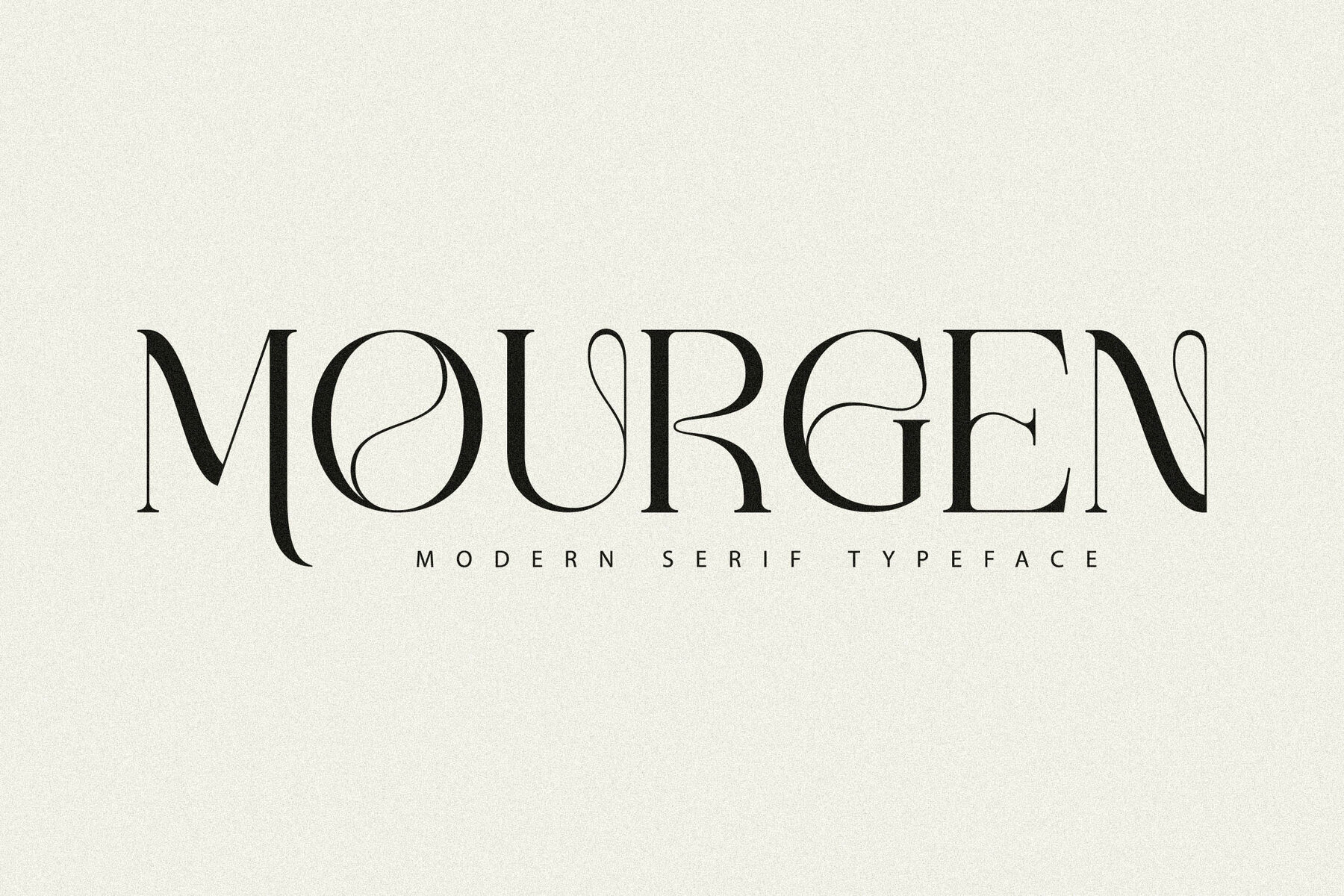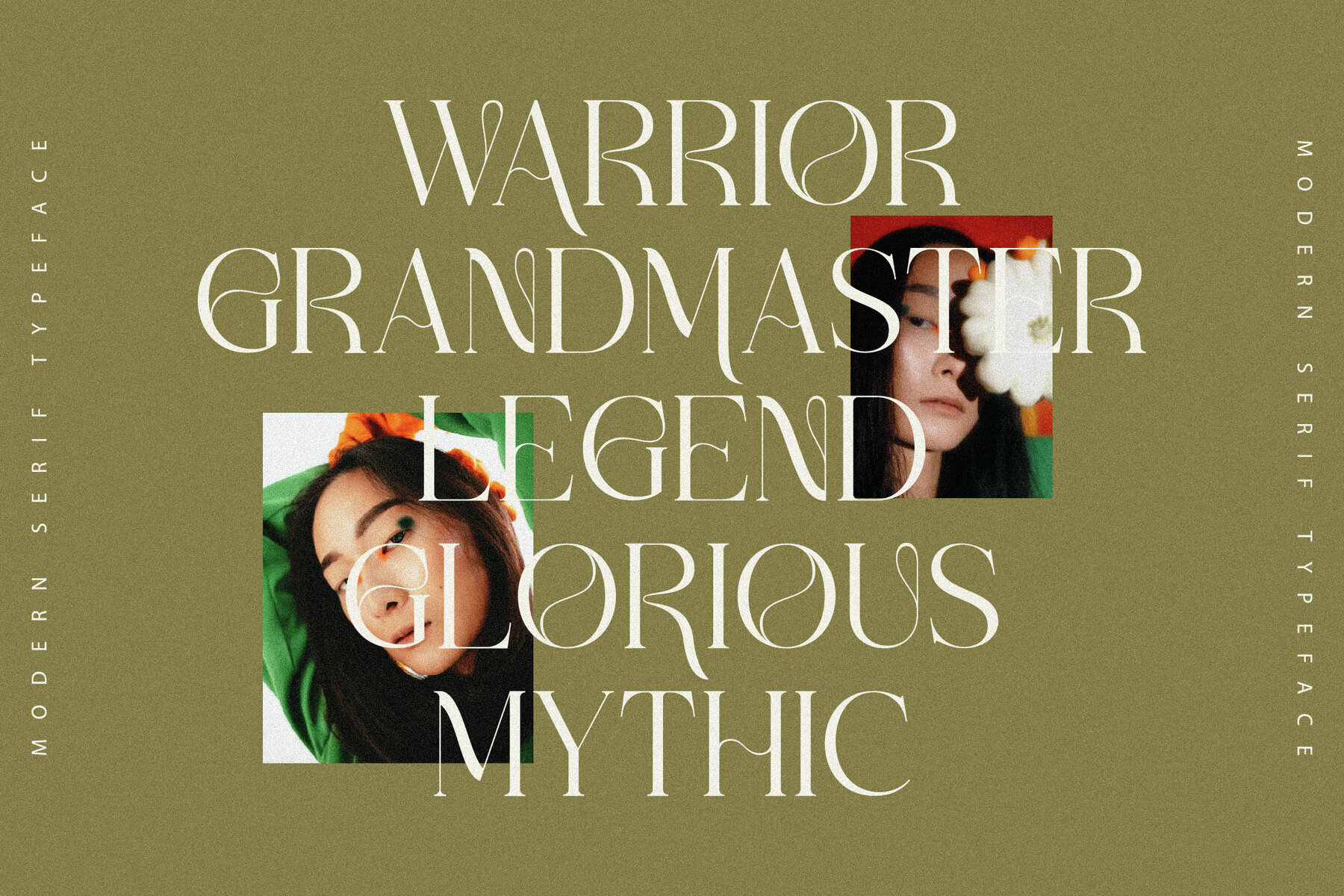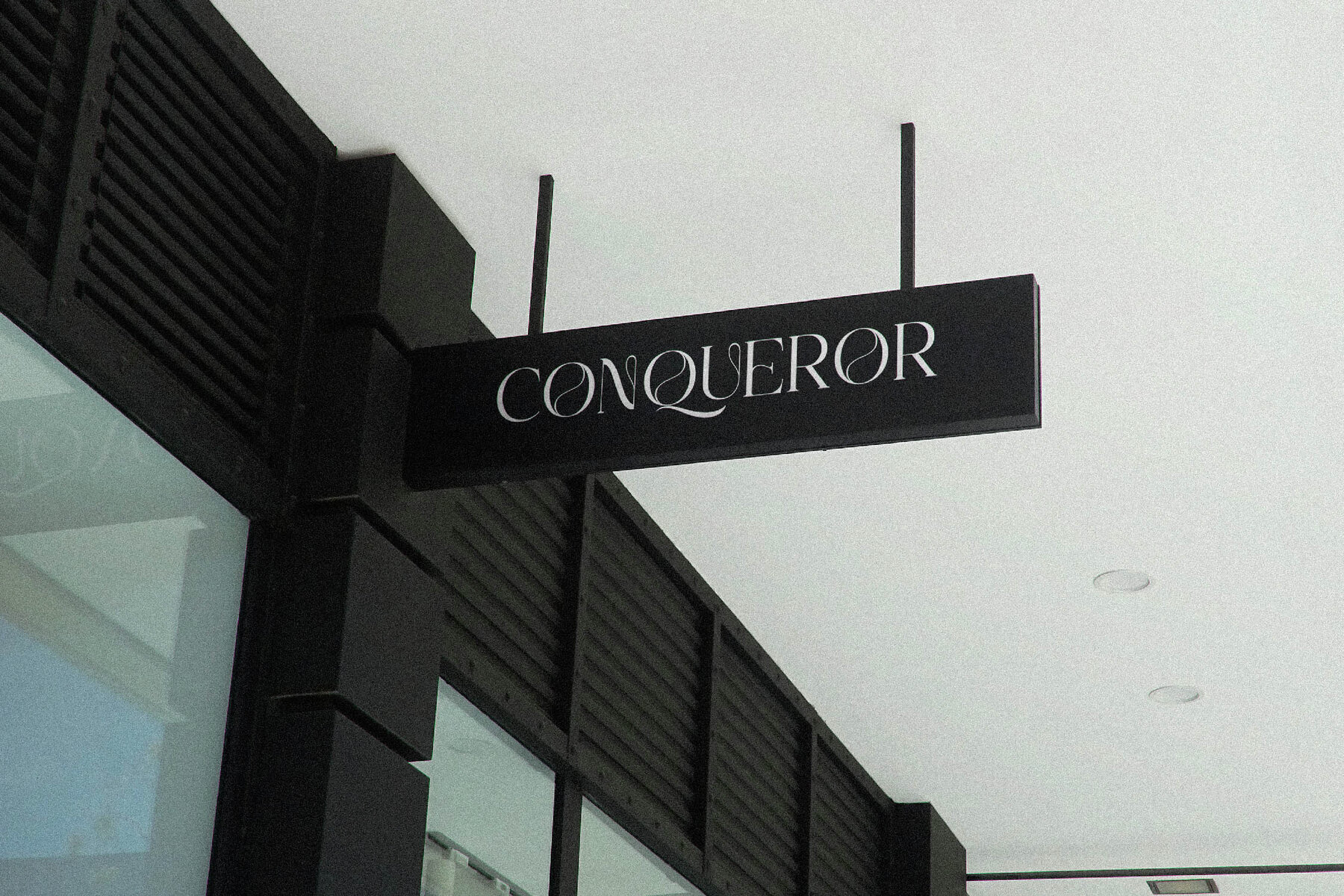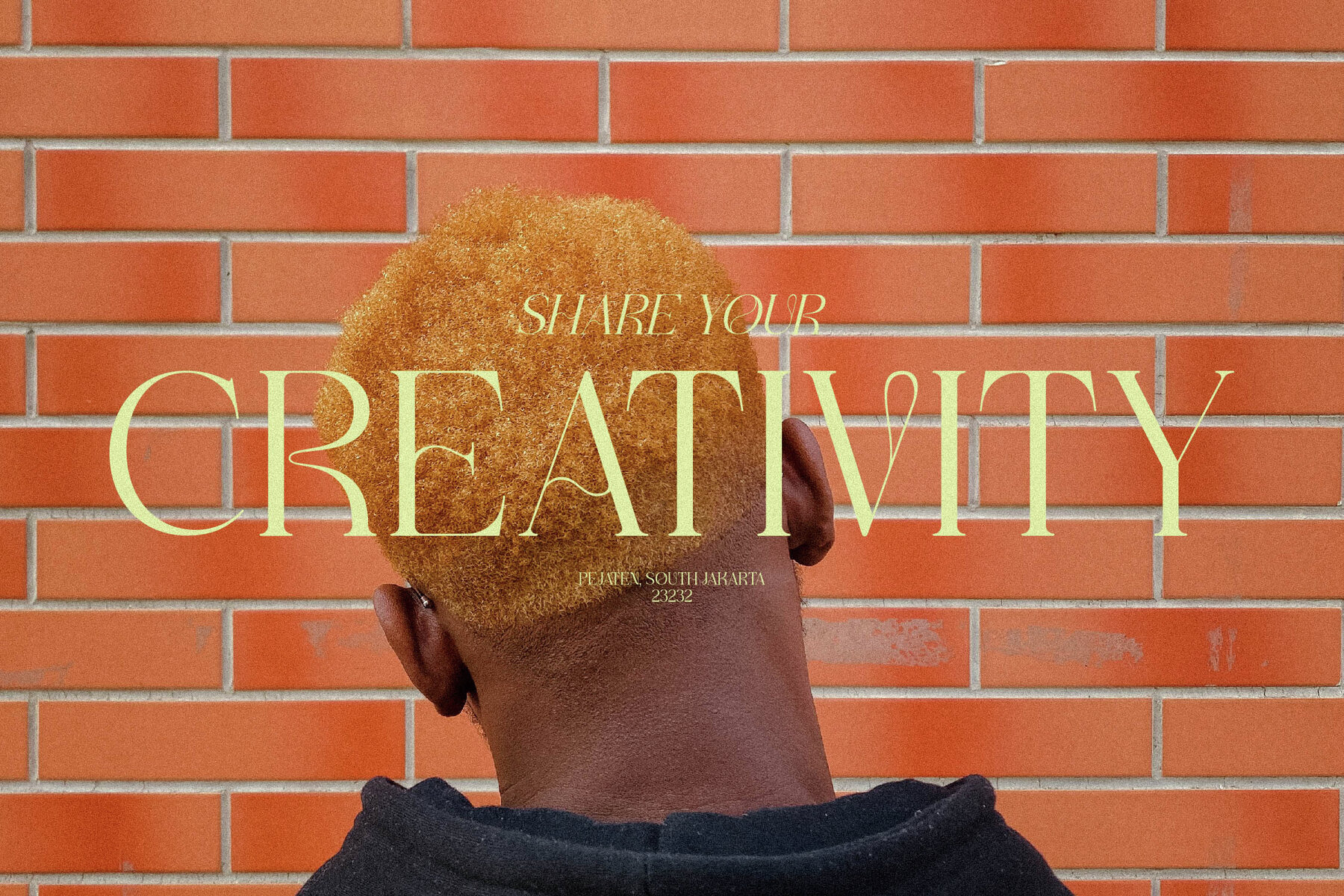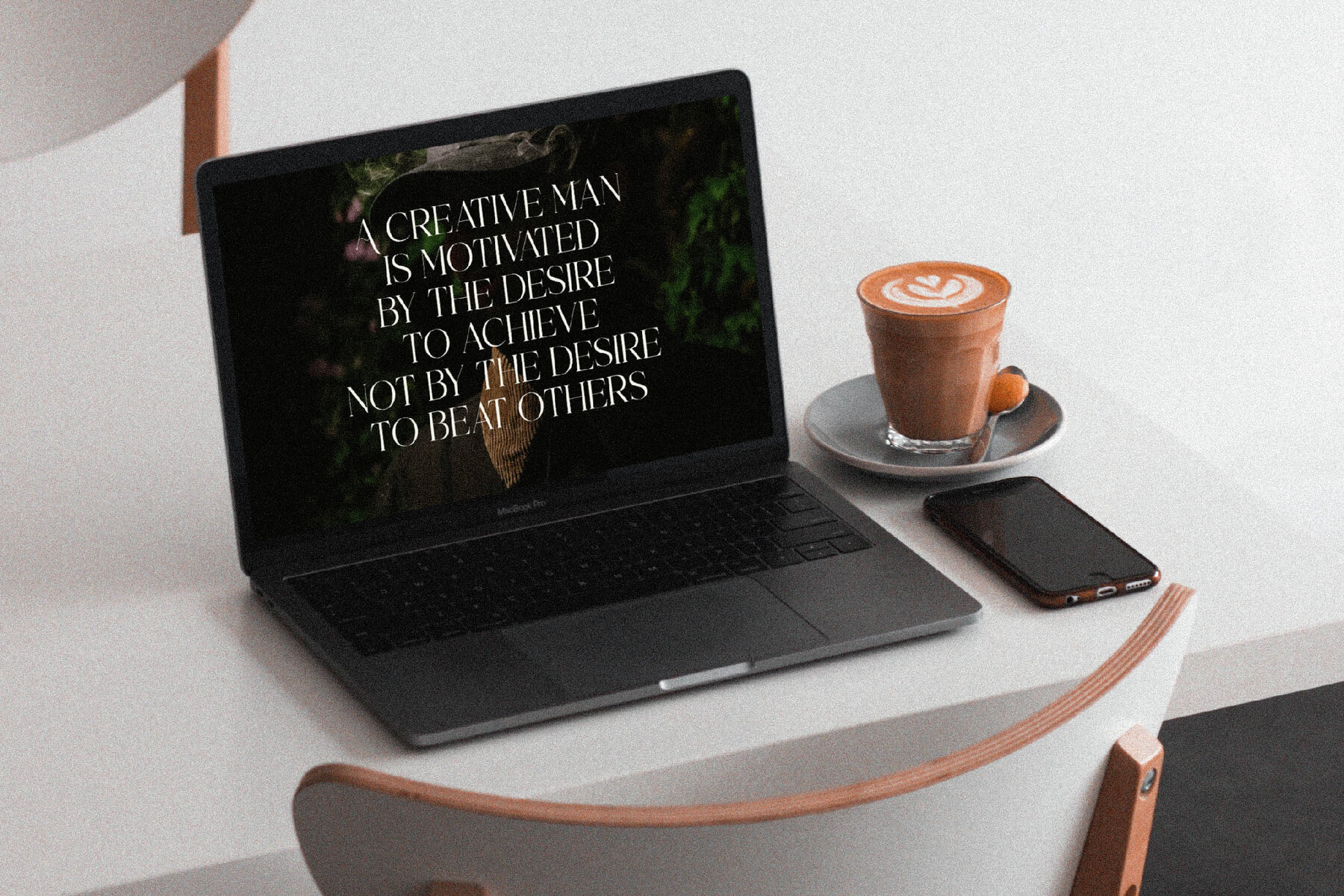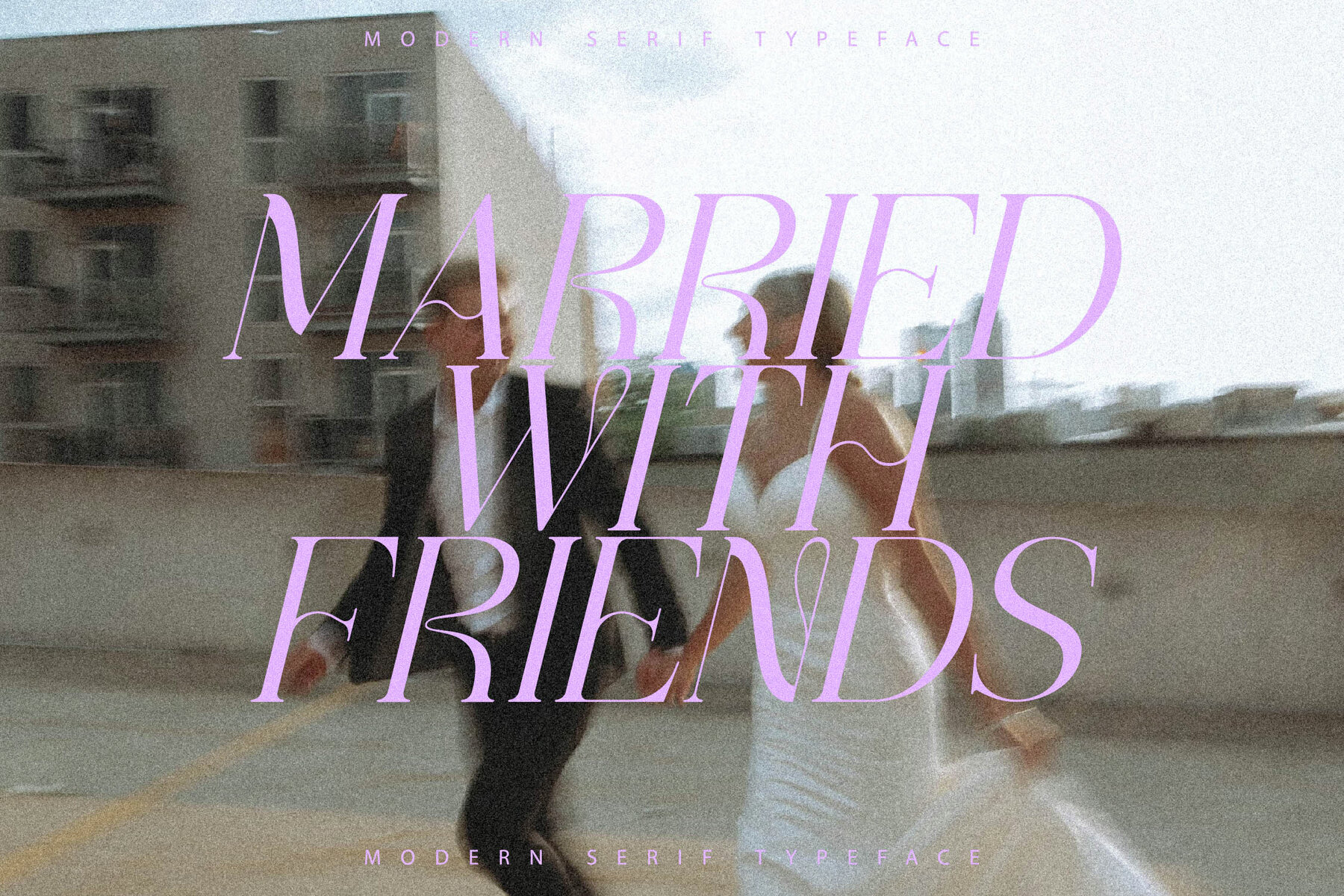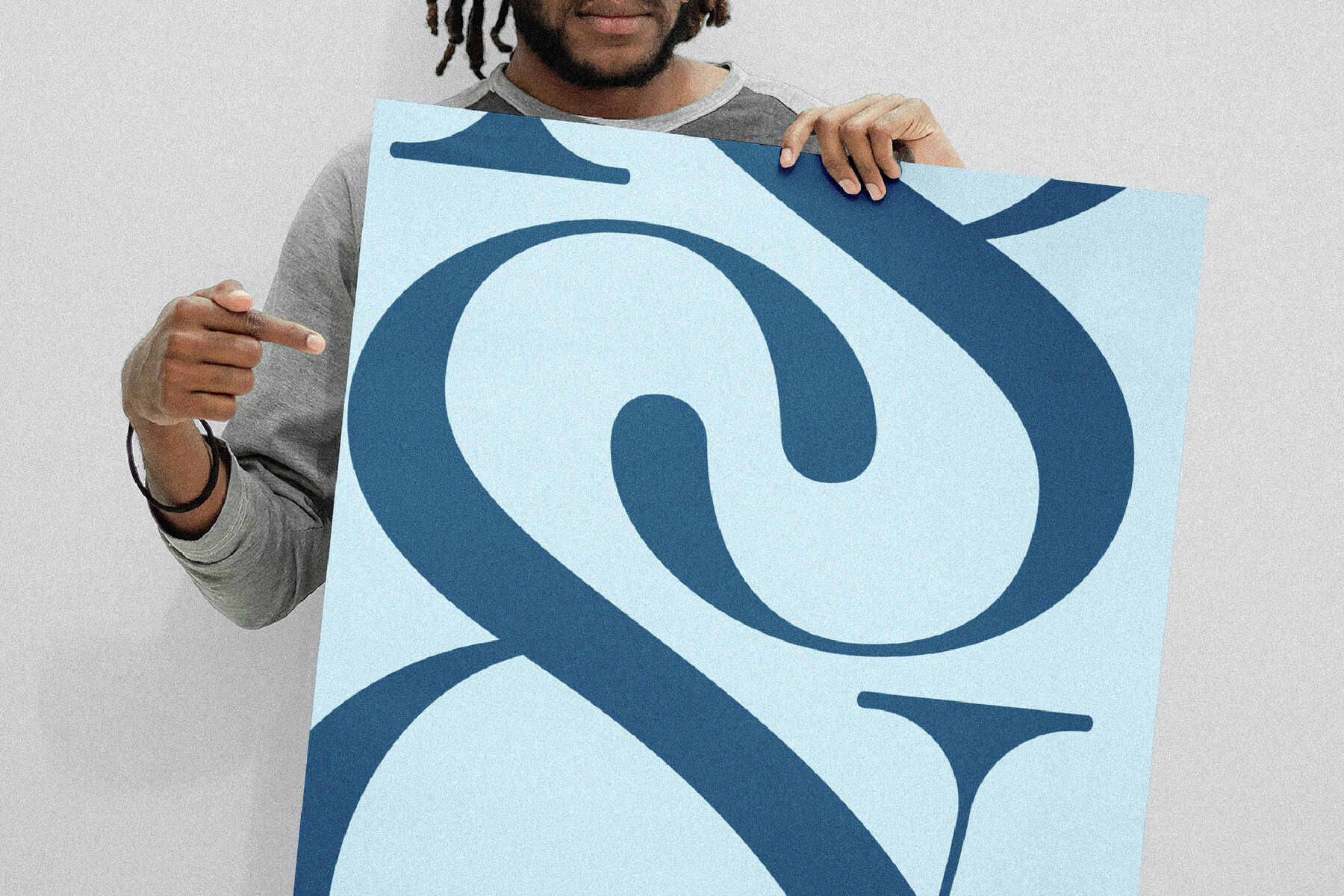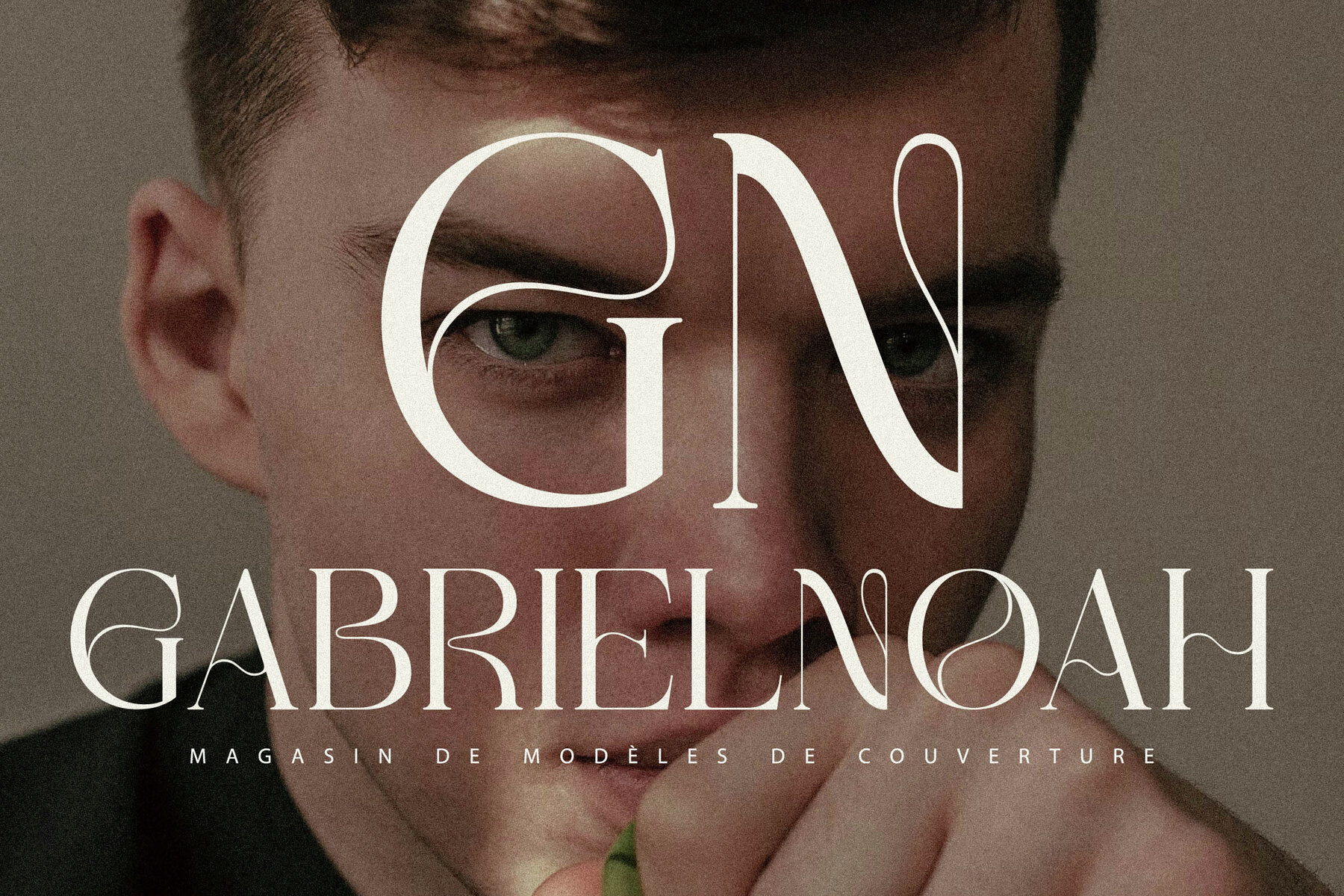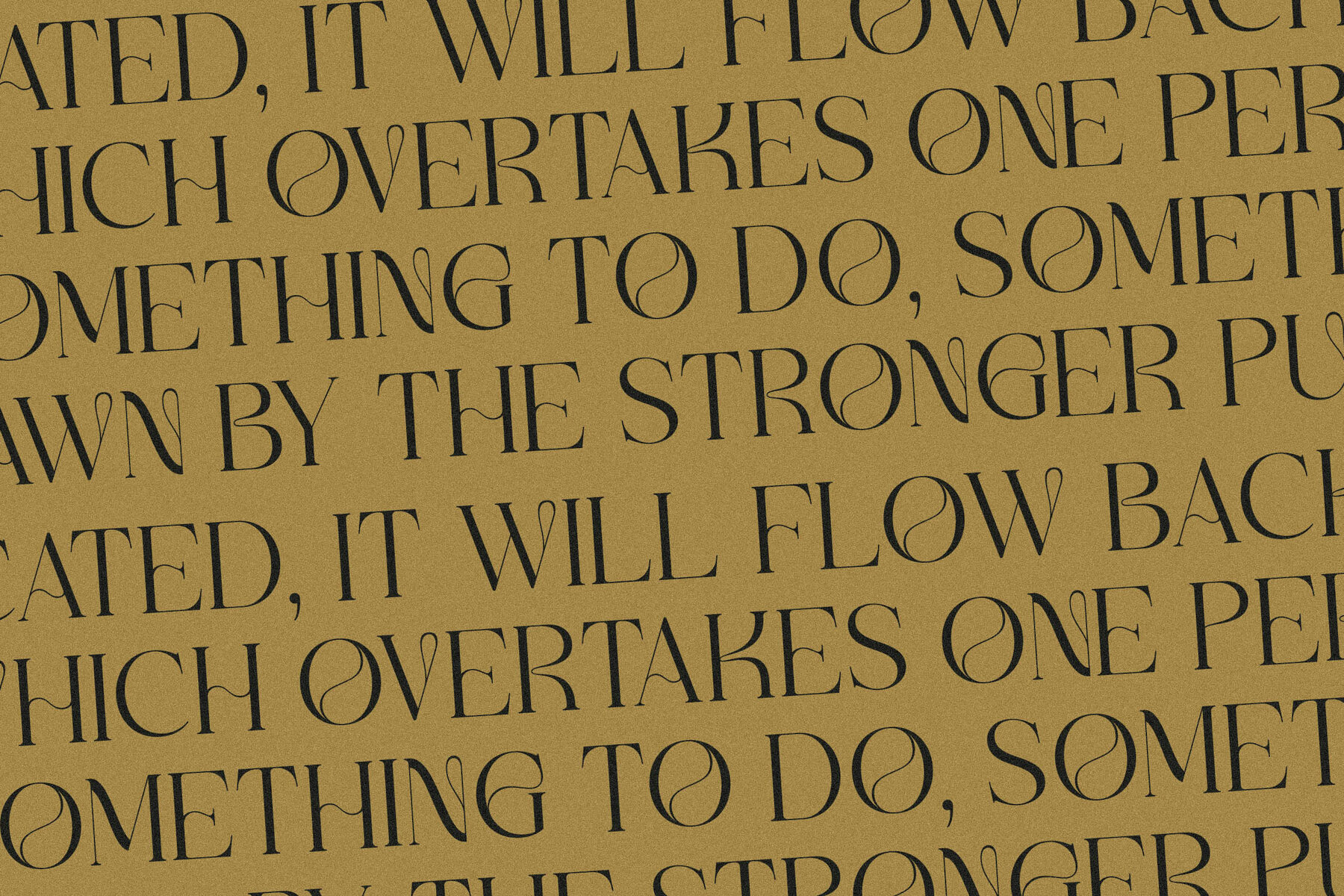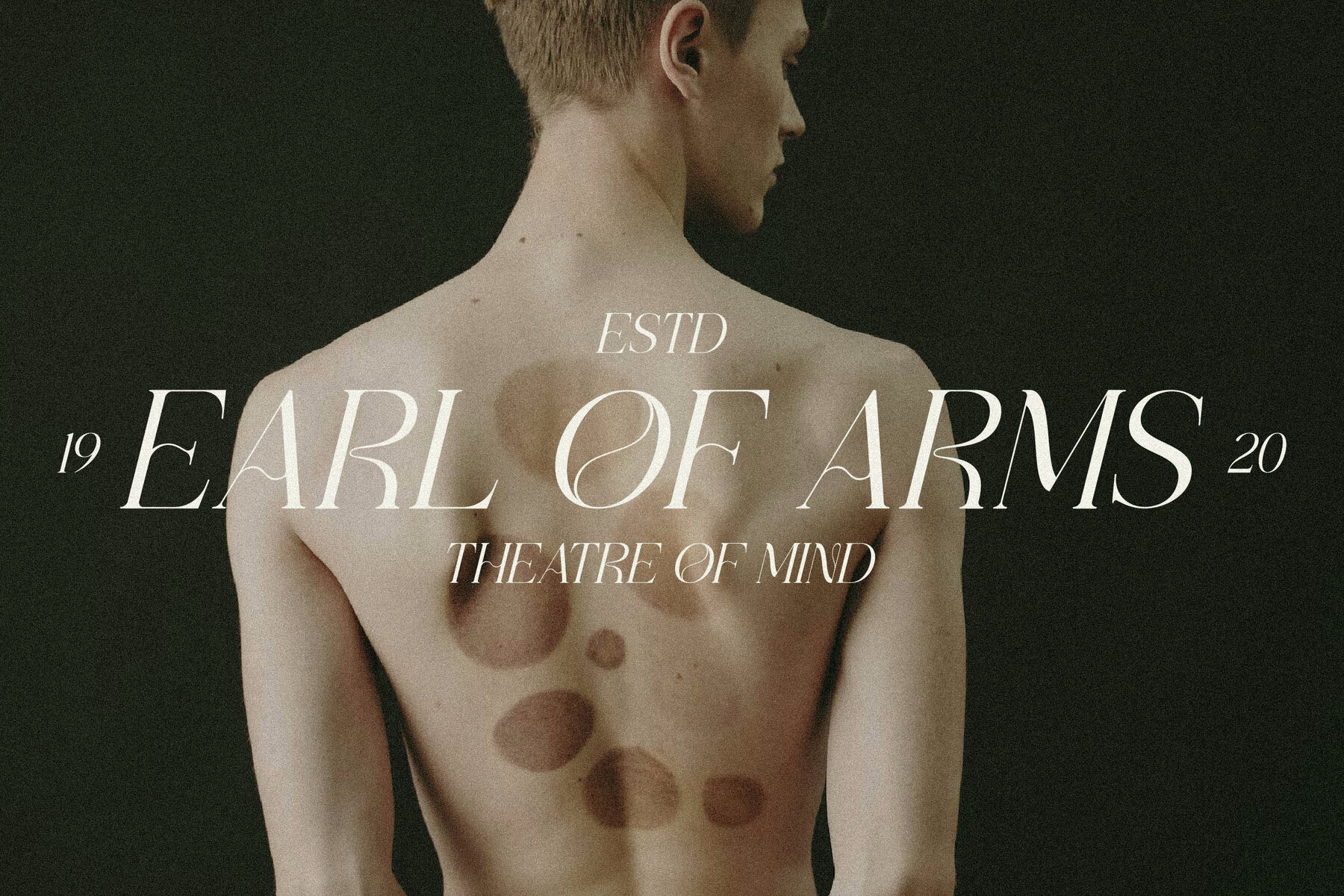
MOURGEN Font
Mourgen stands out as a serif typeface that seamlessly blends modern flair with classic elegance. Perfect for those looking to create an upscale and sophisticated aesthetic, Mourgen is ideally suited for crafting luxury logos, book or movie titles, and designs for fashion brands. It's equally at home in magazine layouts, clothing labels, and captivating quotes.Mourgen Typeface